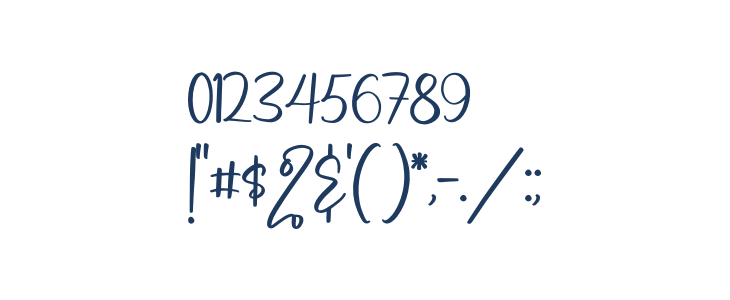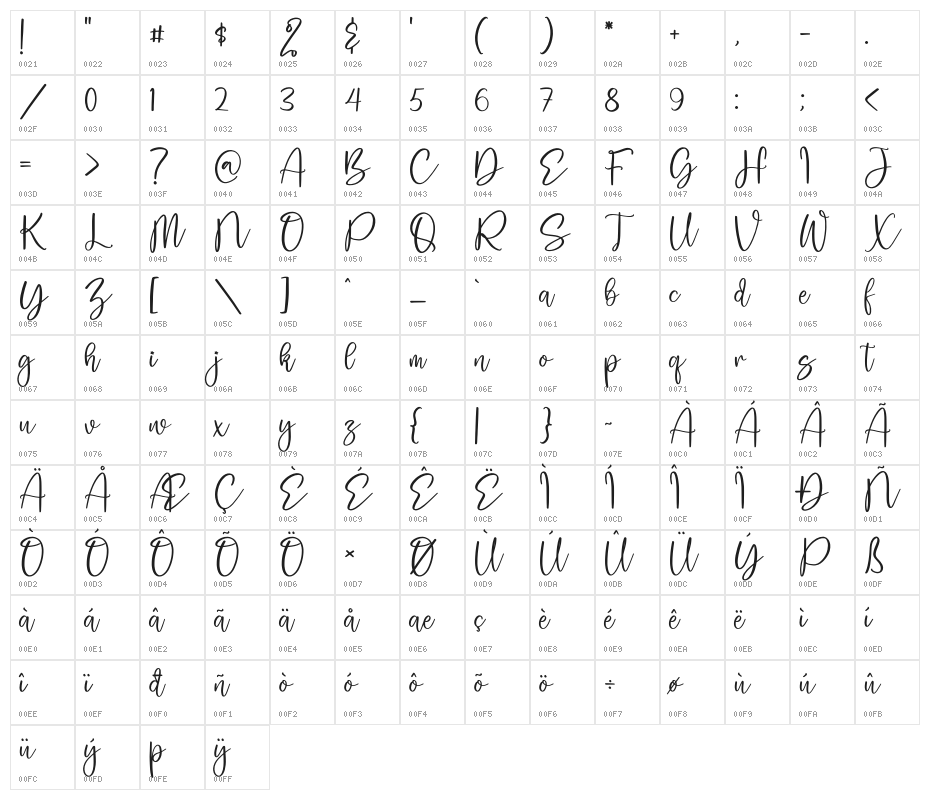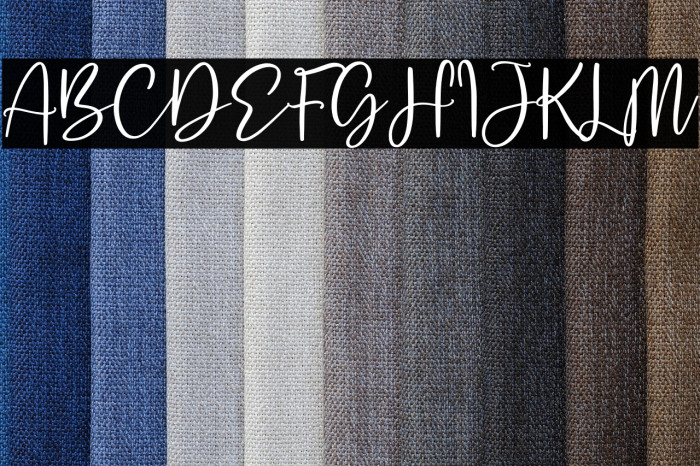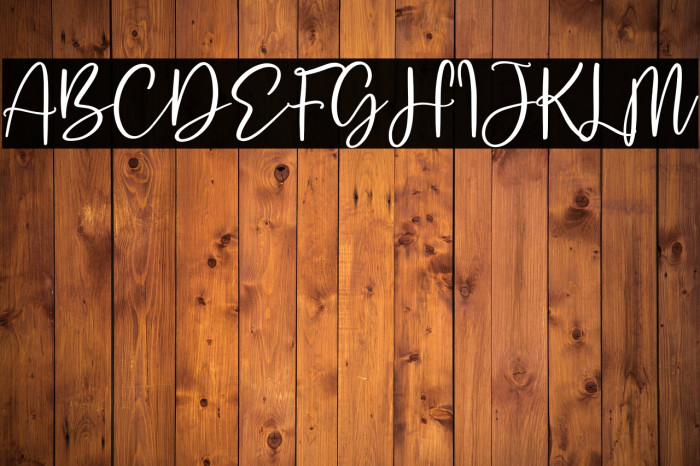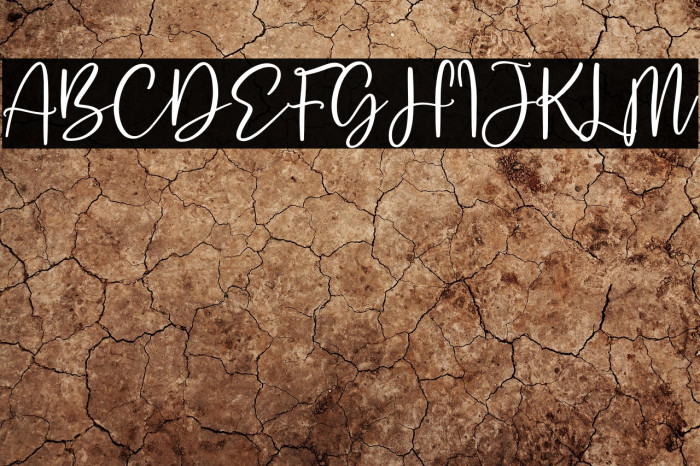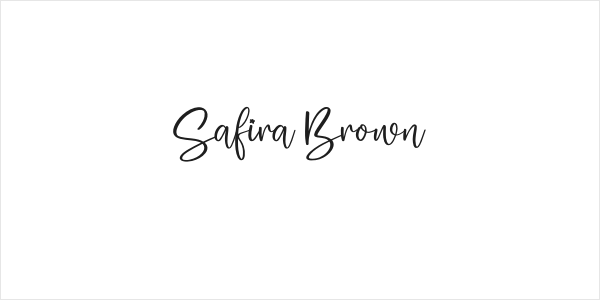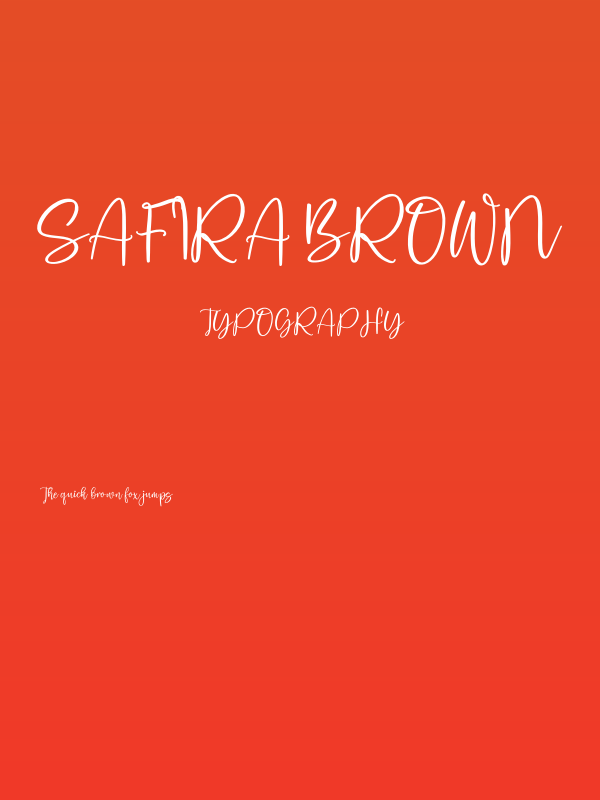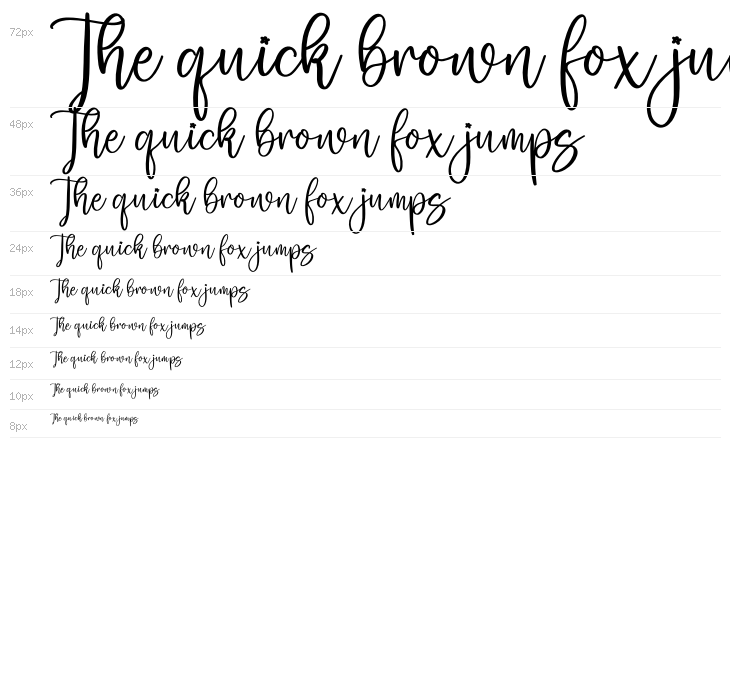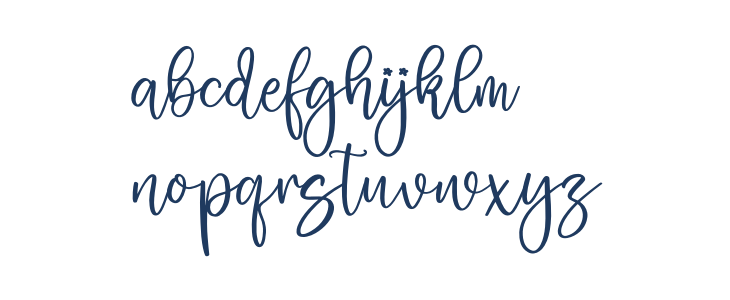
Safira Brown Font
Safira Brown Description
This font features a lively and flowing script style, characterized by its elegant and cursive letterforms. The uppercase letters are tall and slender, with a slight slant that adds a dynamic feel. The lowercase letters are more rounded and connected, creating a smooth and continuous flow. The numerals are consistent with the overall script style, maintaining the same fluidity and elegance. Special characters are thoughtfully designed to complement the alphabet, ensuring versatility in various design contexts. The font's playful yet sophisticated appearance makes it suitable for creative projects that require a personal touch.